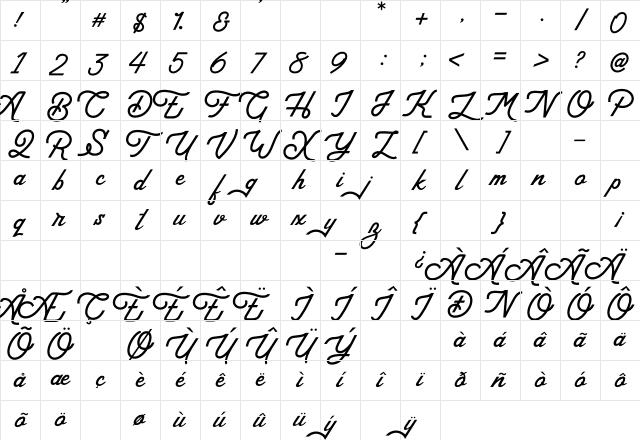
Arthington is a composed and adaptable typeface that performs quietly and consistently across a wide range of design contexts. Its slender proportions lend an understated elegance to any composition.